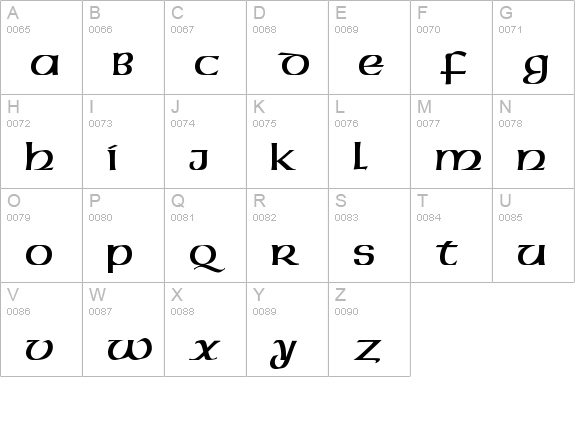
American-Americ-Normal is the standard, neutral variant in the American typeface family \xE2\x80\x94 well suited to general body text, paragraphs, and standard typographic work.
American-Americ-Normal font is a classic and versatile typeface that exudes a sense of Americana charm. With its clean lines and timeless appeal, this font is perfect for a wide range of design projects. Whether you're working on a vintage-inspired poster, a modern website, or anything in between, American-Americ-Normal font is sure to add a touch of sophistication to your work. Best of all, this font is completely free to download at FontsMarket.com. Simply head to the website, grab your copy, and start using it in your designs today. Don't miss out on this fantastic opportunity to enhance your projects with the beauty and elegance of American-Americ-Normal font.